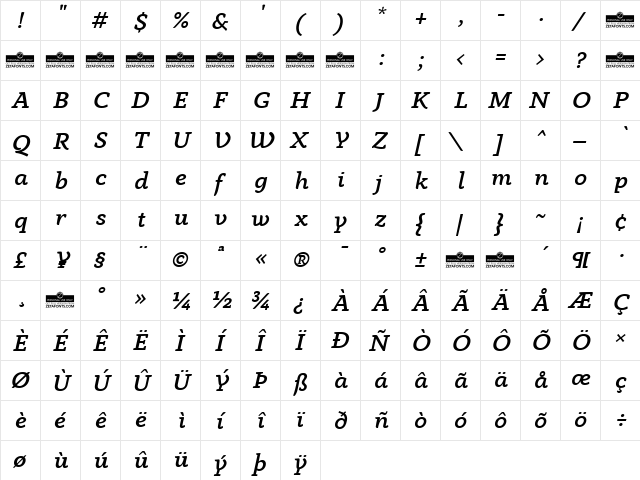
Anaphora Trial Medium Italic Font Preview
Anaphora Trial Medium Italic
Anaphora Trial Medium Italic Font Details
| Style | Medium Italic |
| Foundry | Studio Kmzero |
| Designer | Francesco Canovaro |
Design Context for Anaphora Trial Typeface
Anaphora Trial takes a measured approach to typography — its balanced proportions and neutral character make it a reliable workhorse for both digital and print work. The slanted form adds forward momentum and visual energy.